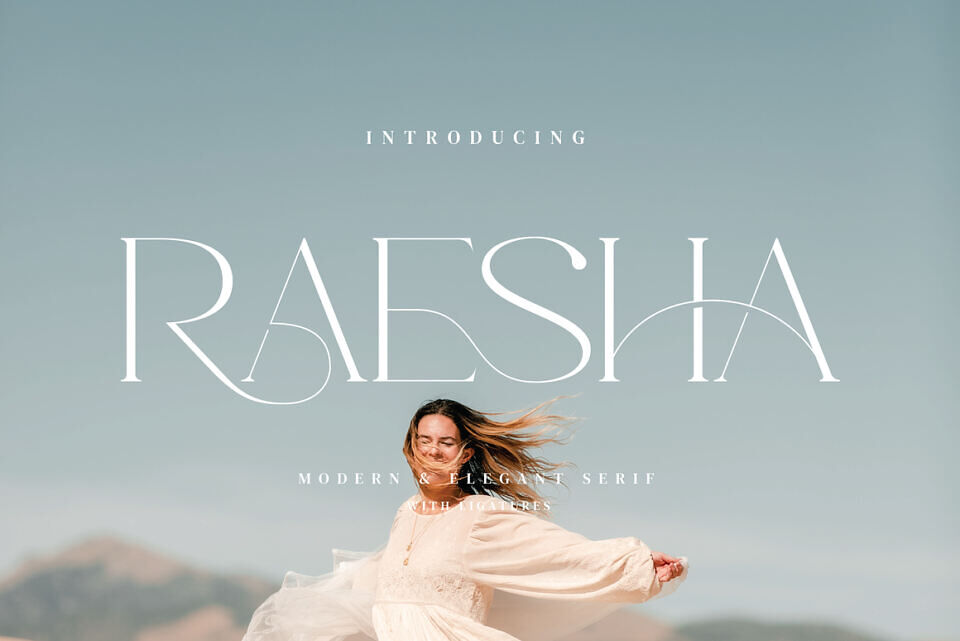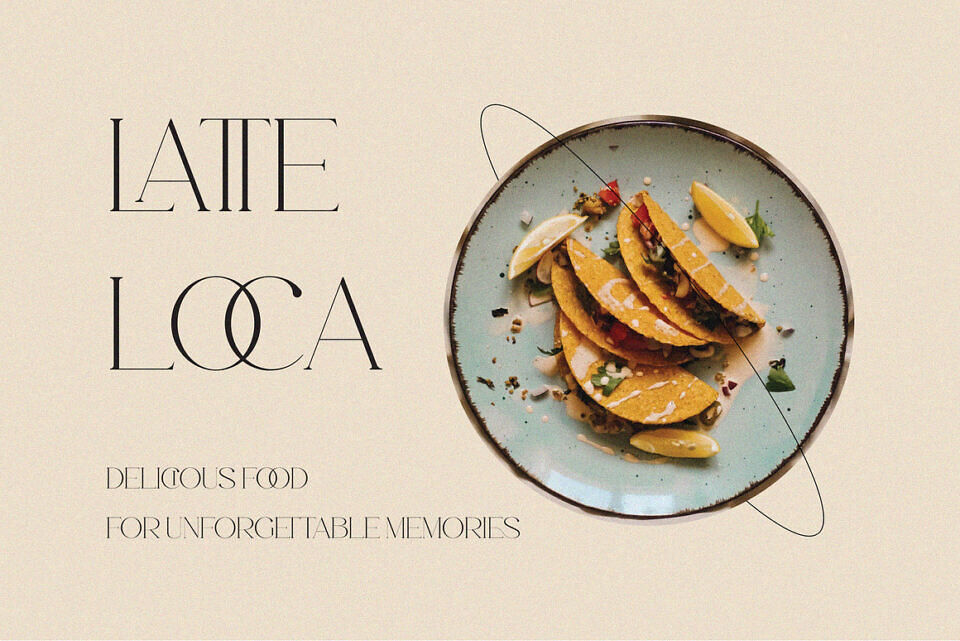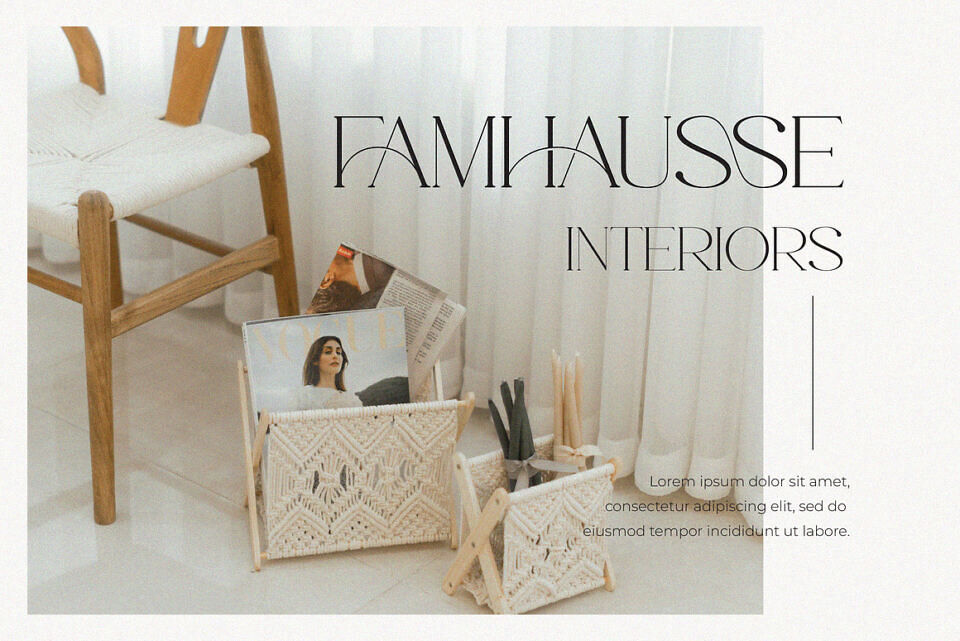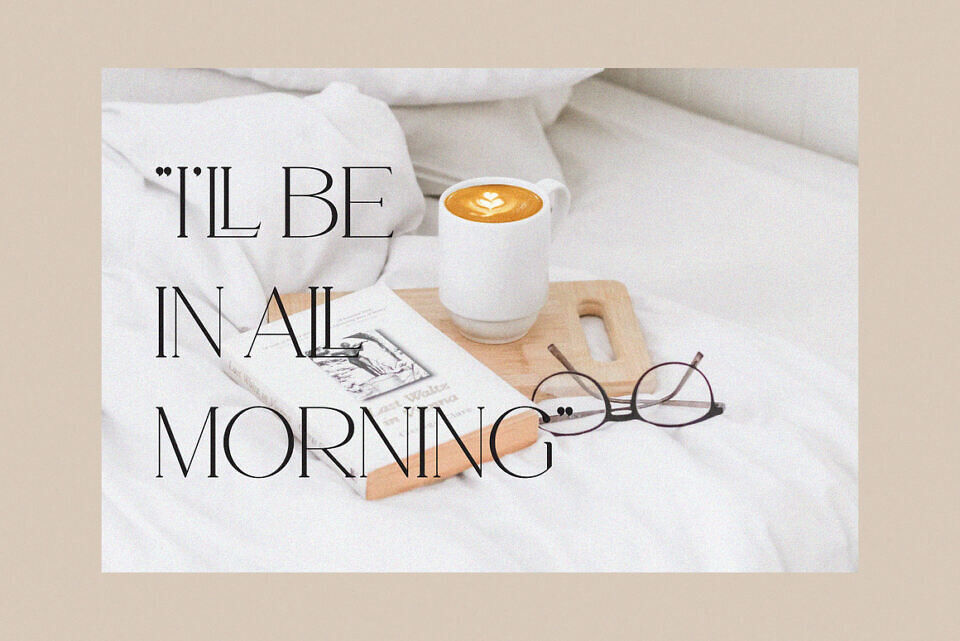
Raesha Font
Raesha is an elegant serif typeface inspired by the famous minimalist logo, perfect for the purposes of designing templates, brochures, videos, advertising branding, logos and more.